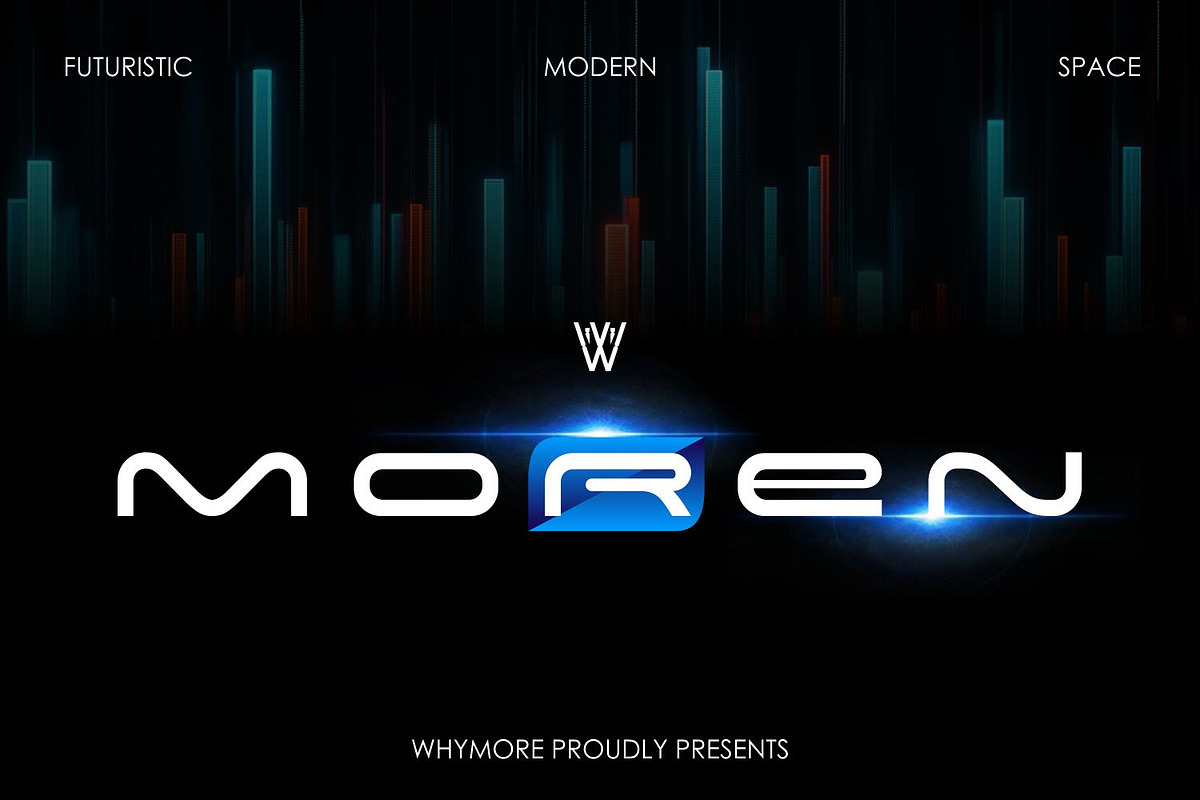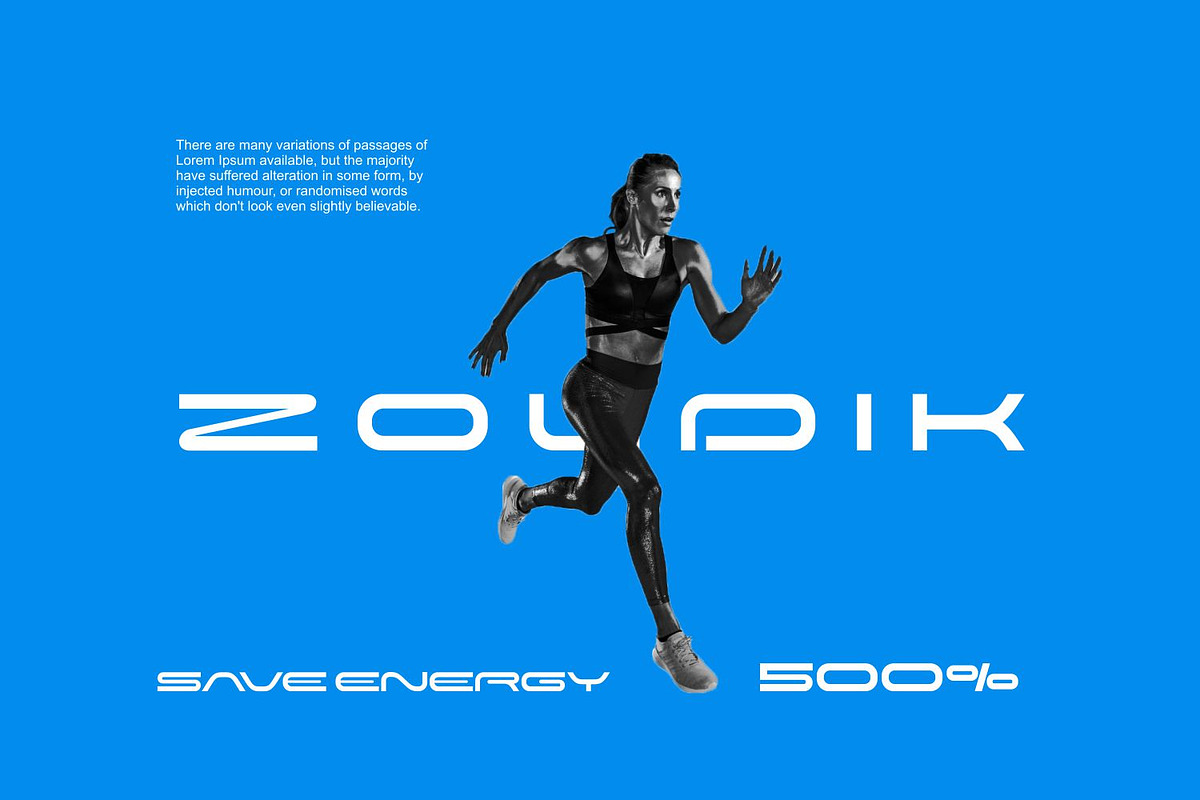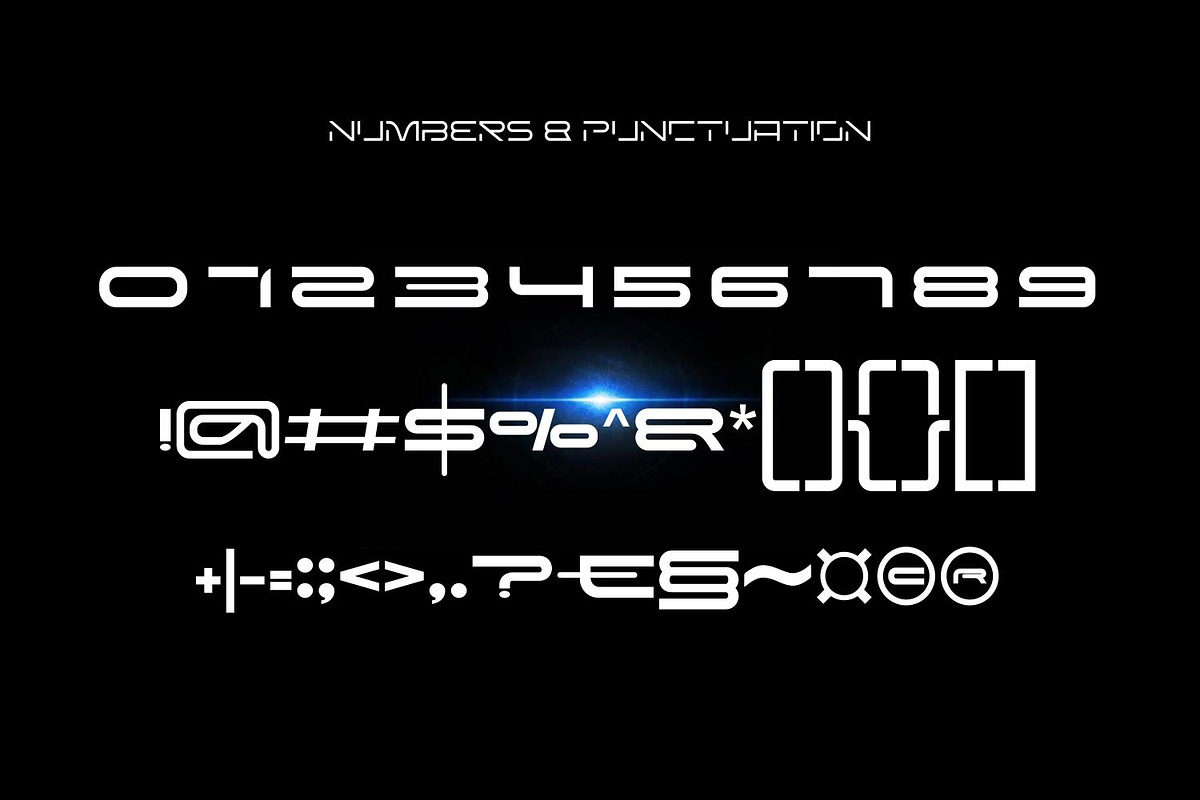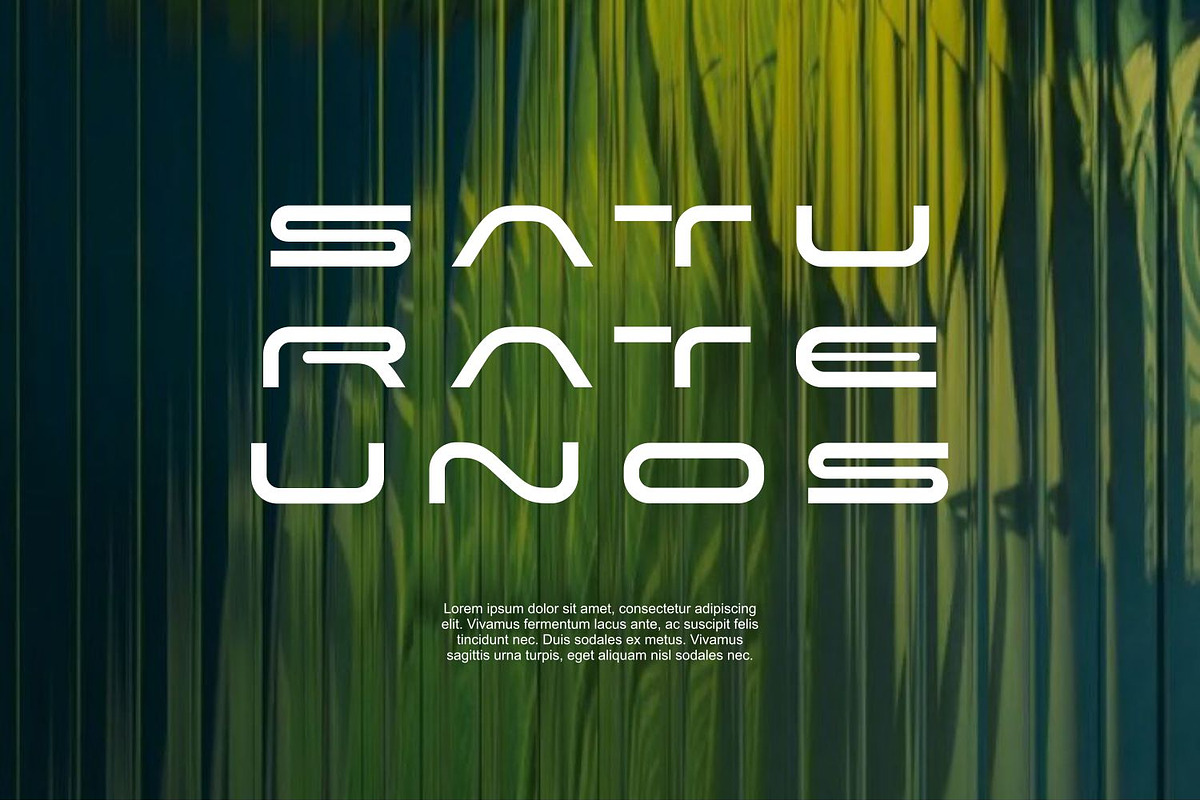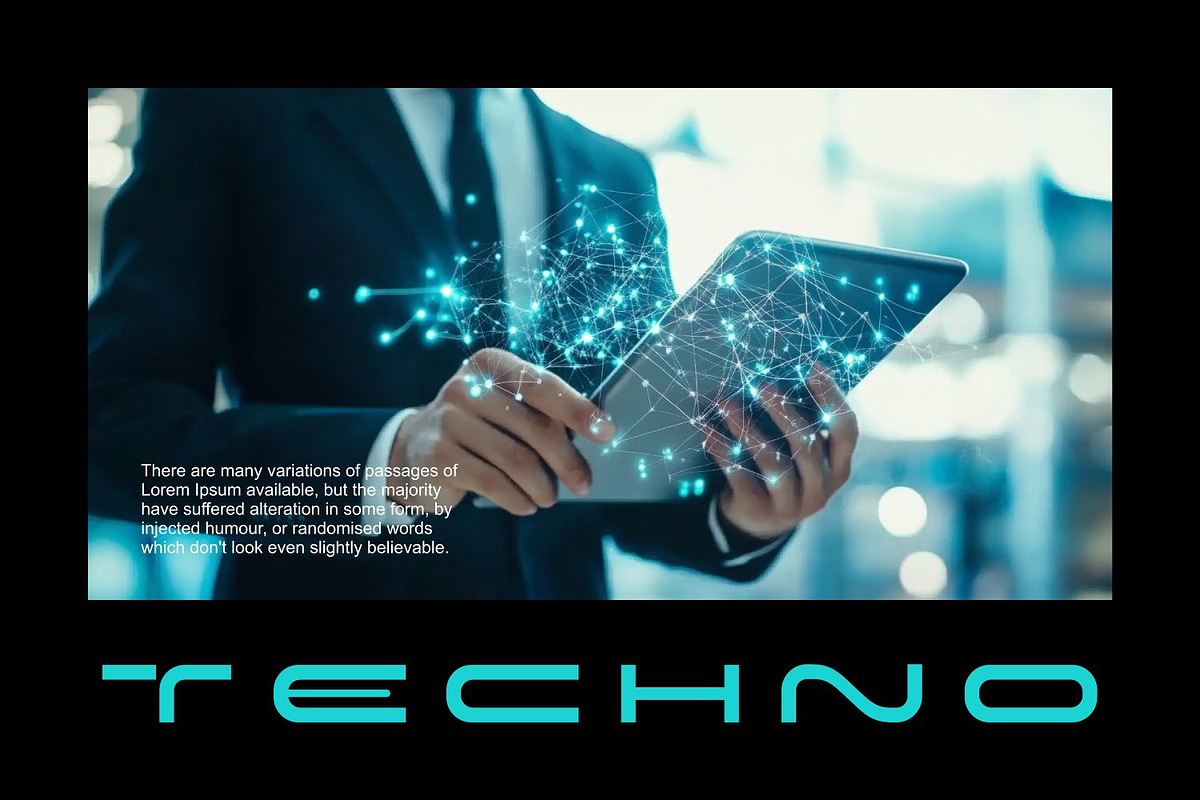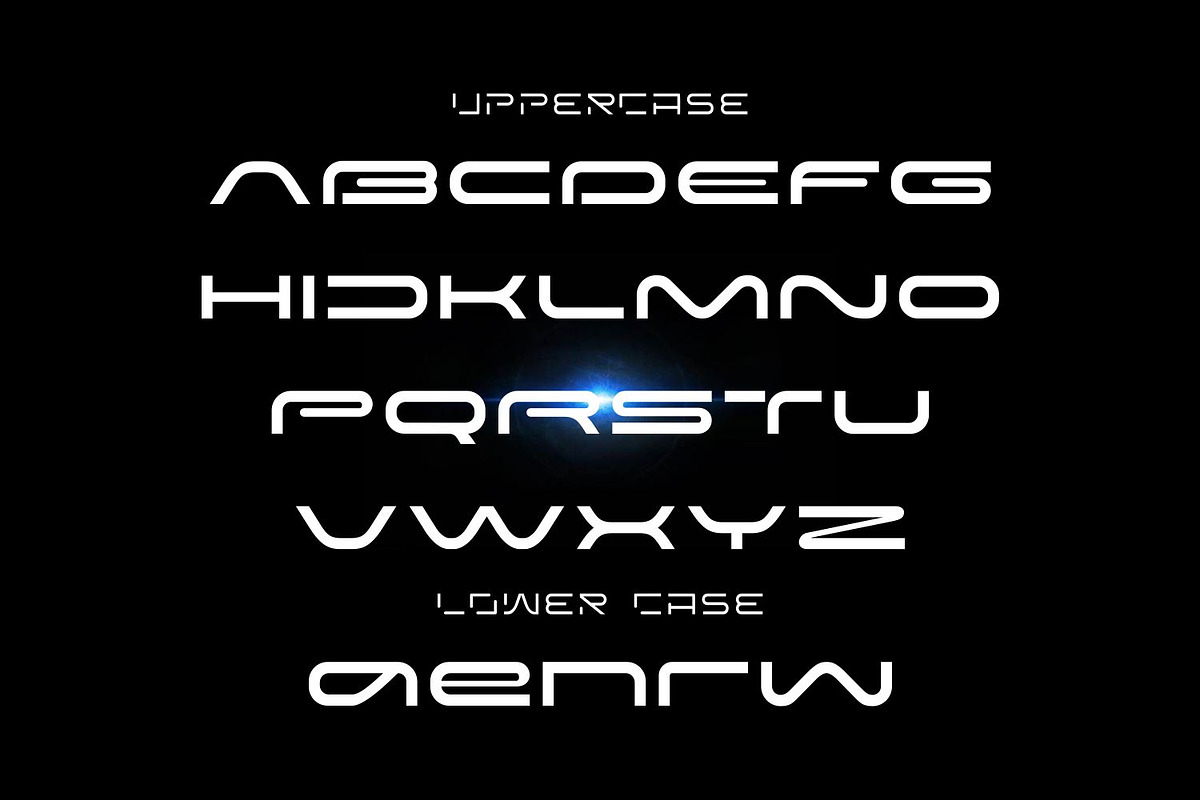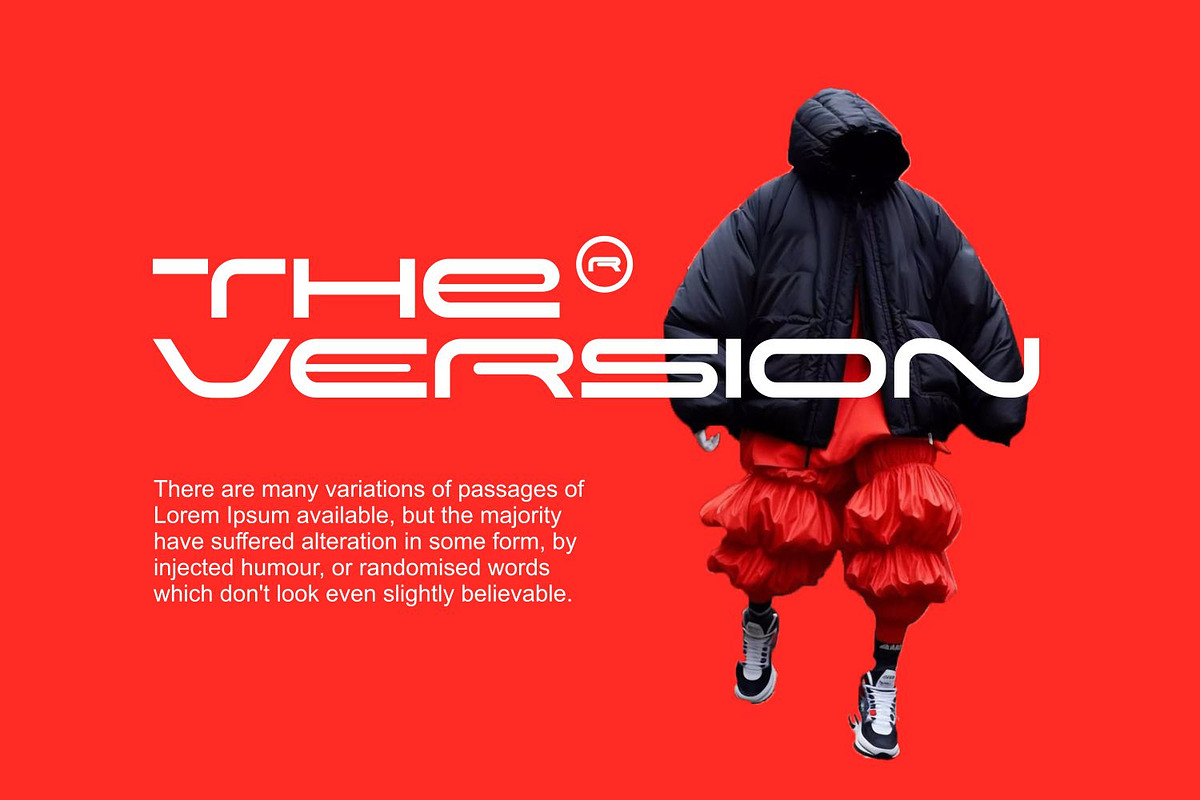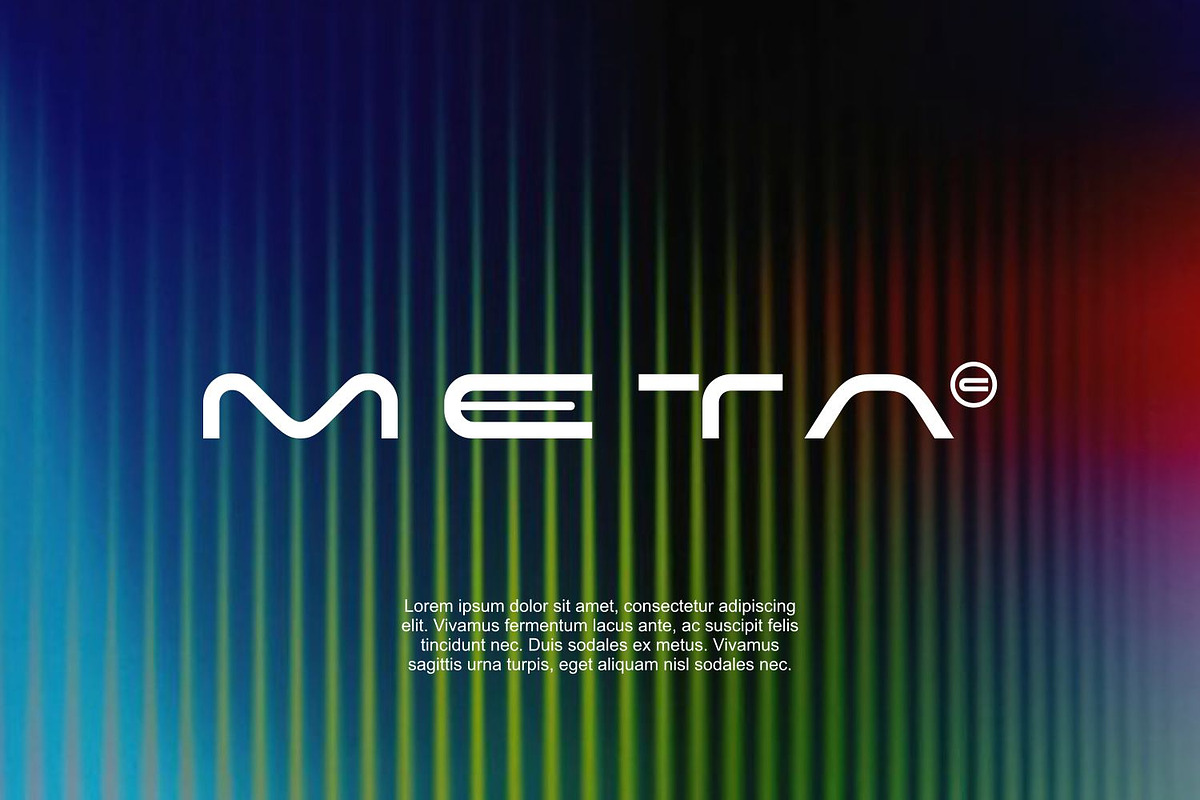
Moren: Futuristic Sleek Stylish Font
Moren is a sleek, stylish futuristic font perfect for modern tech designs and sci-fi projects. Its geometric, minimalist sans-serif style makes it ideal for logos, websites, and branding.
Features – Modern futuristic design – Sleek minimalist style – Geometric sans-serif typeface – Perfect for tech and sci-fi projects
Elevate your designs with Moren, the perfect font for the future.